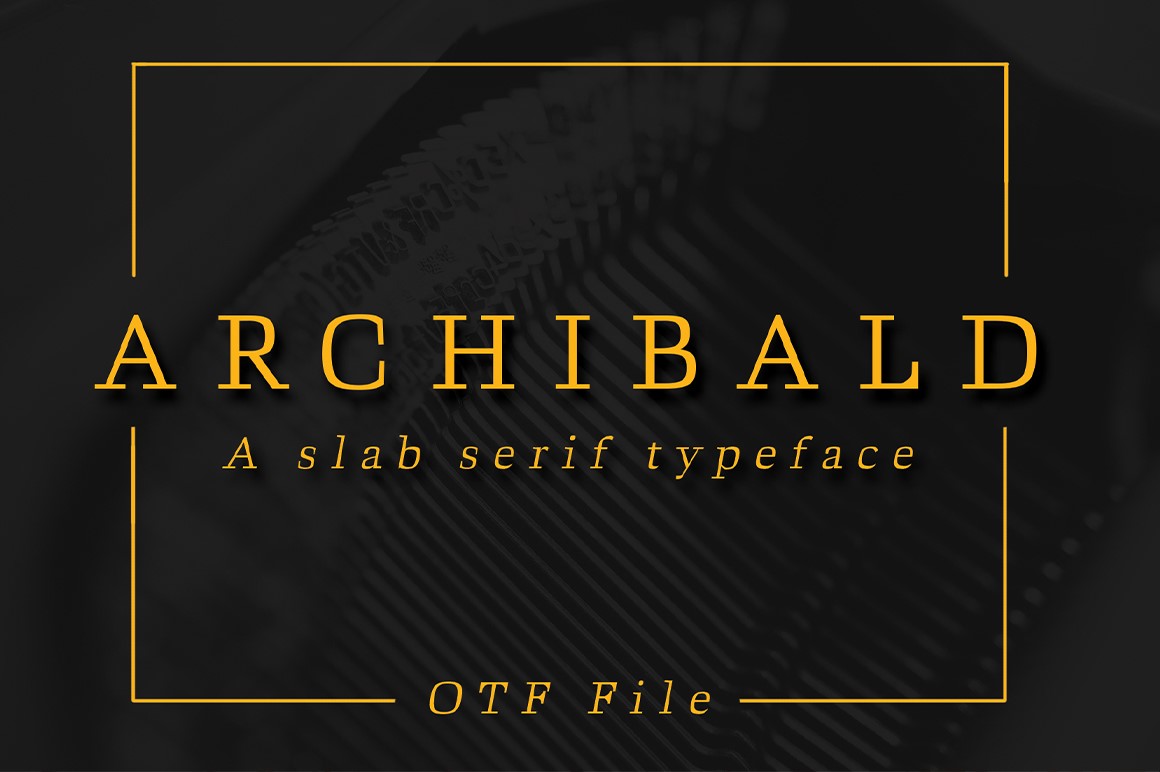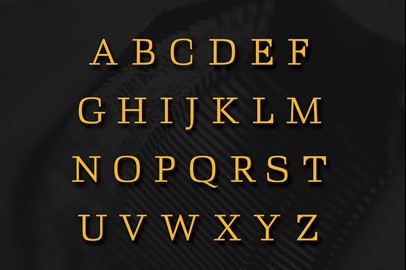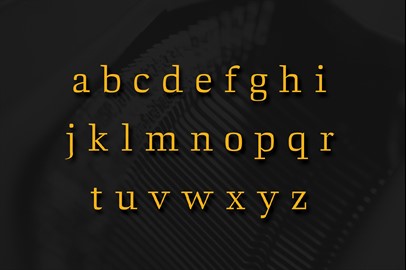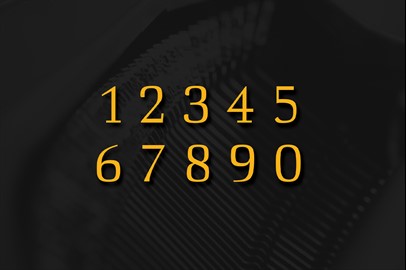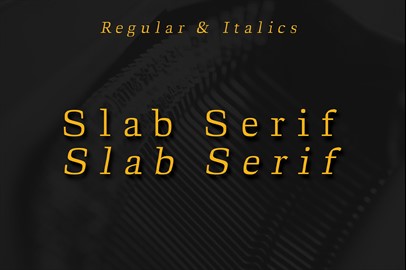
ARCHIBALD: A Classic Slab Serif Typeface
Archibald
is a classic and elegant font: Inspired by the typewriter, this classic typeface is perfect for use in your design projects. Come in regular and italics.